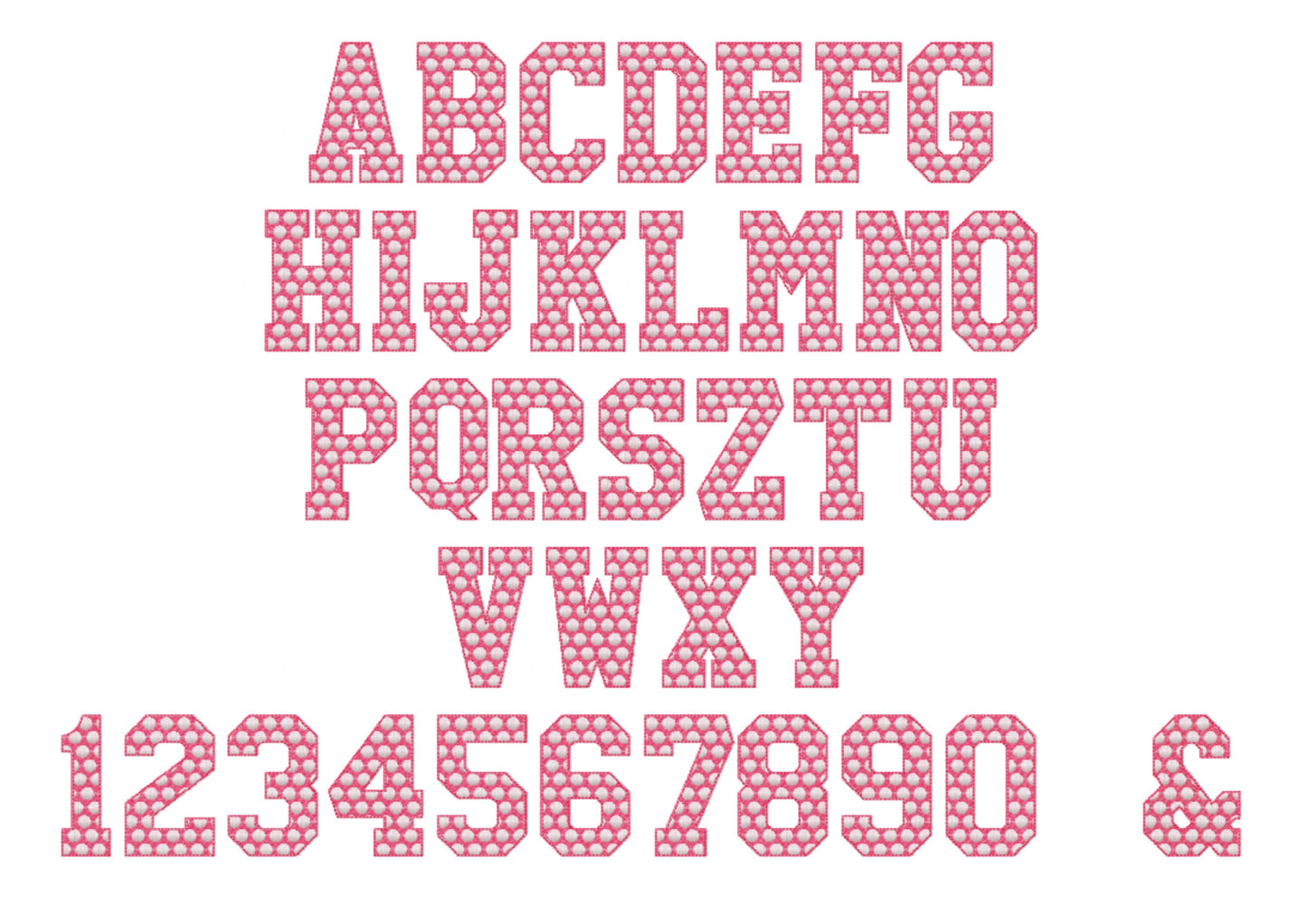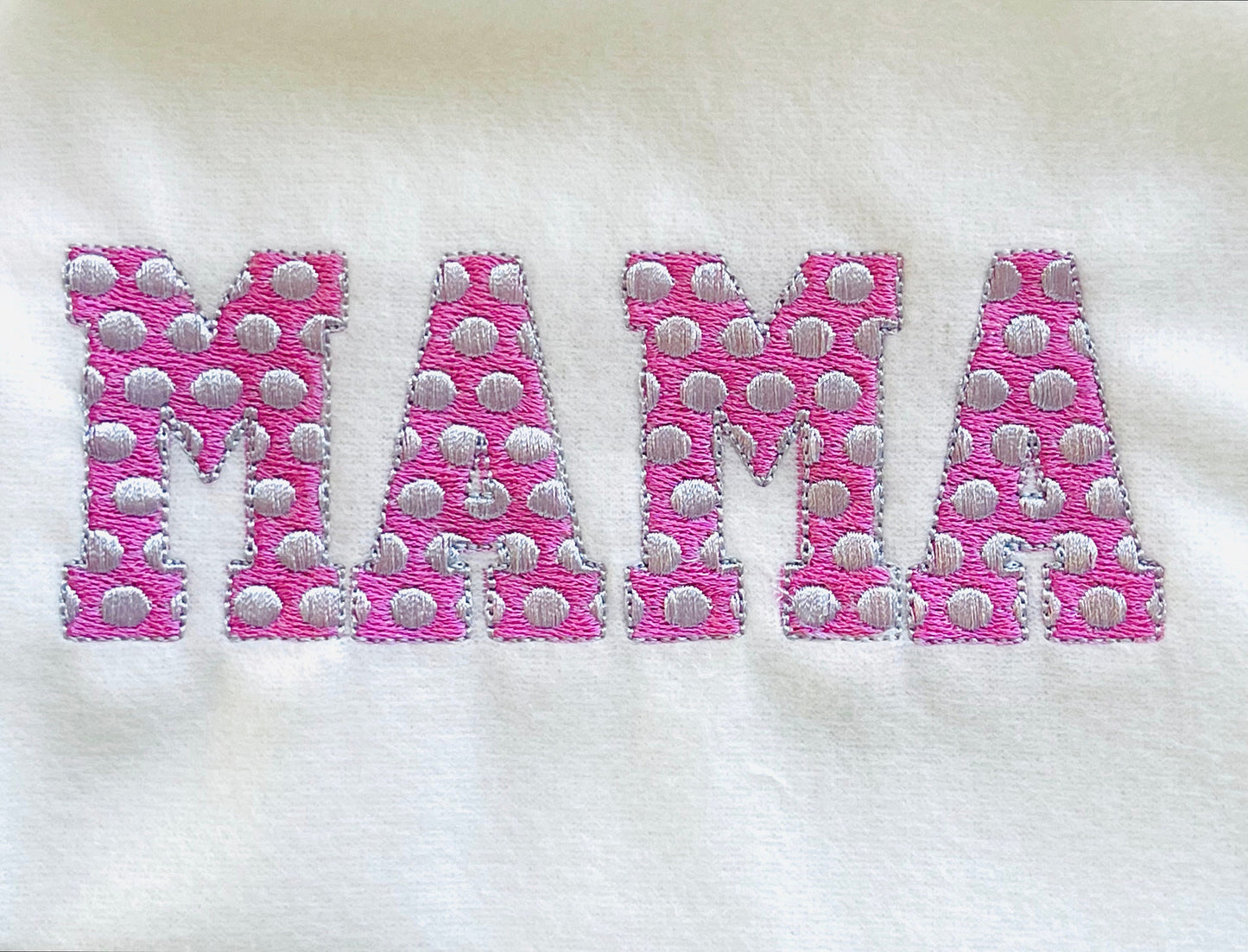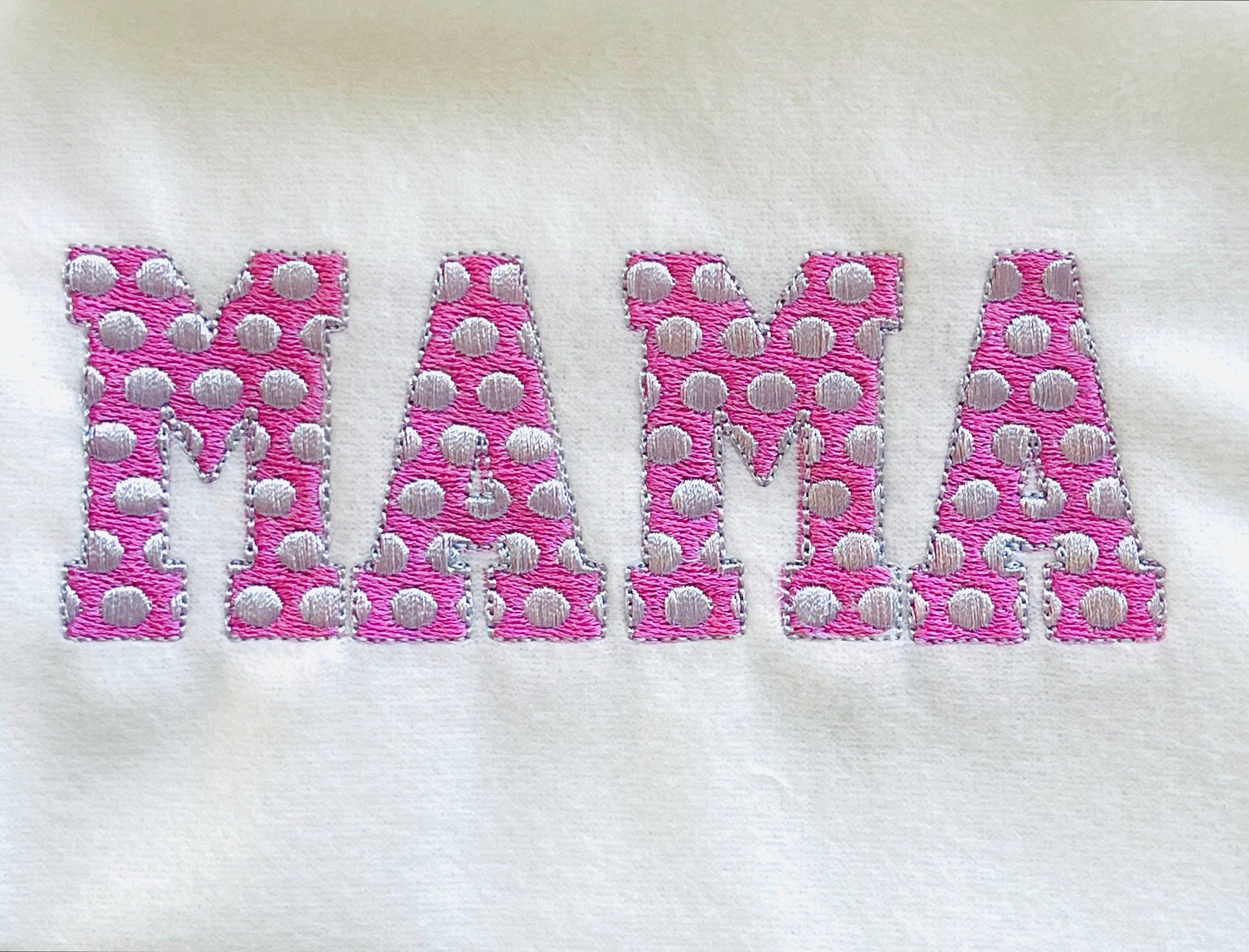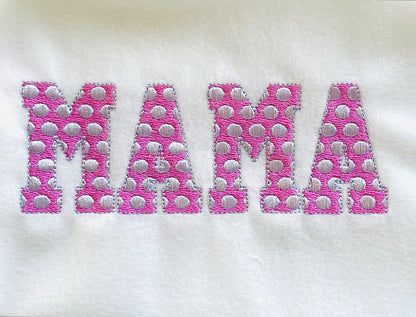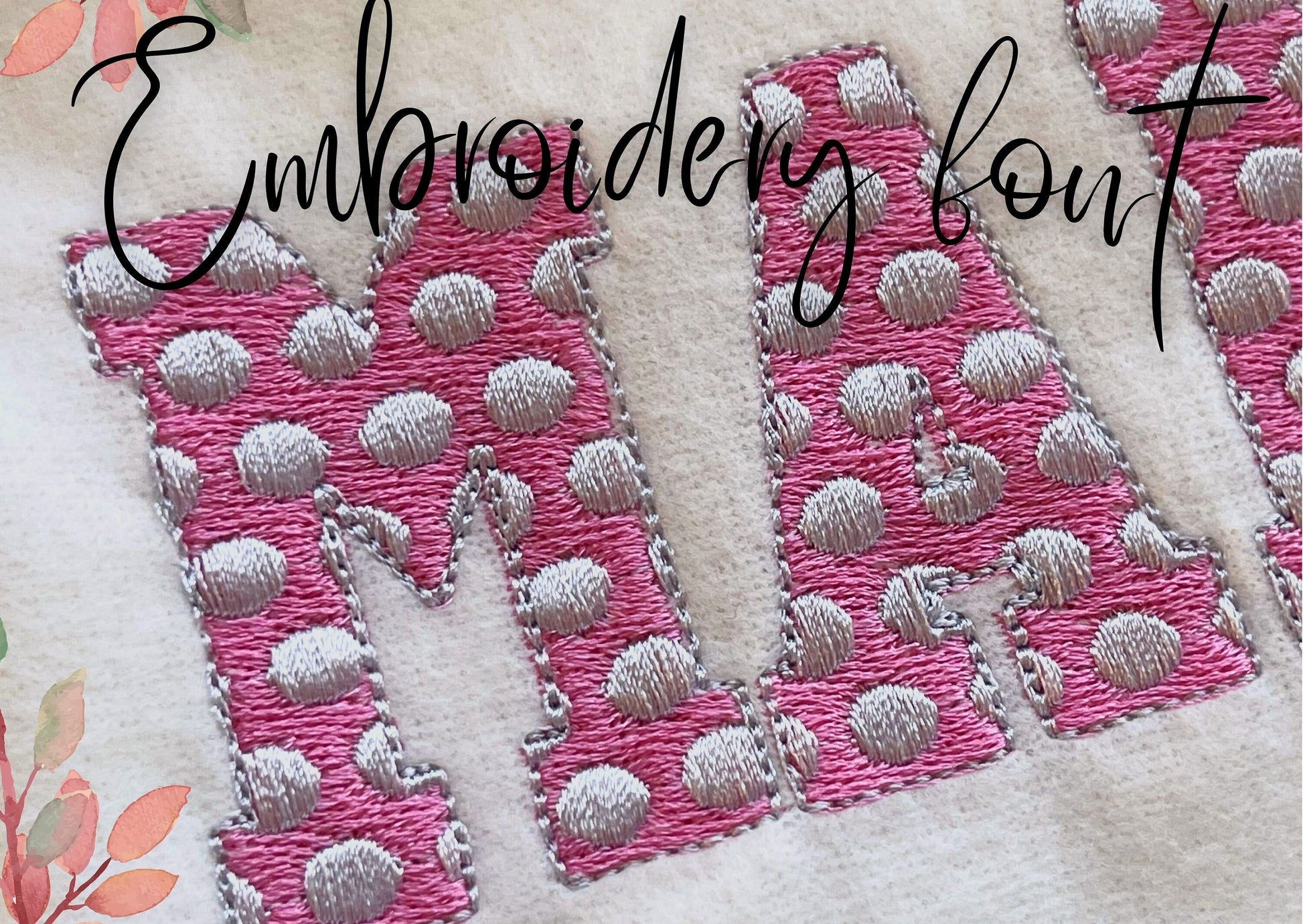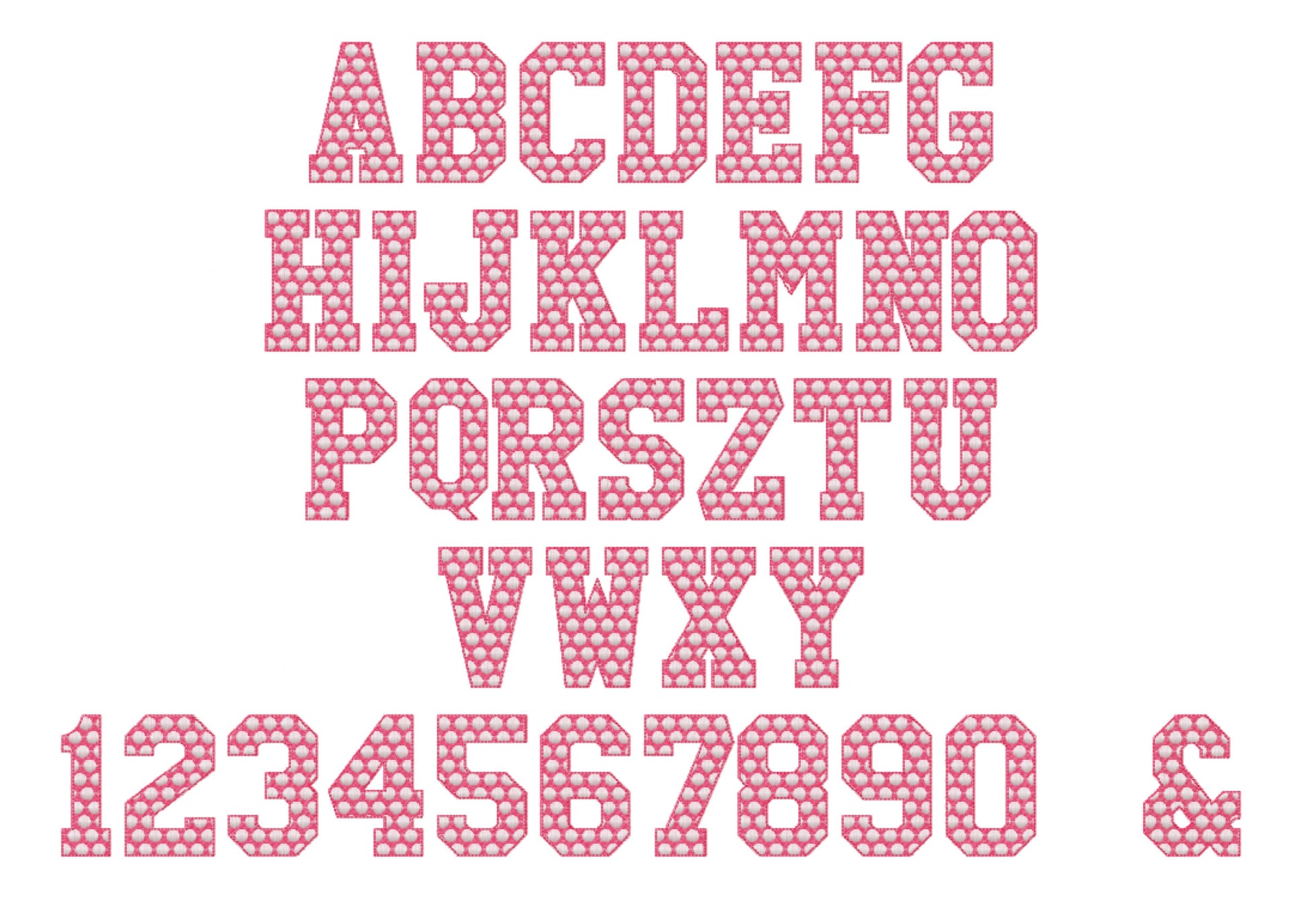
Or click to open the linkA playful polka dot font in fill stitch. Cute for girls' names, birthday shirts, bows and bags.
Capital letters A to Z, numbers 0 to 9, an ampersand, comma and dash, in six sizes: 1, 1.5, 2, 2.5, 3 and 4 inches.